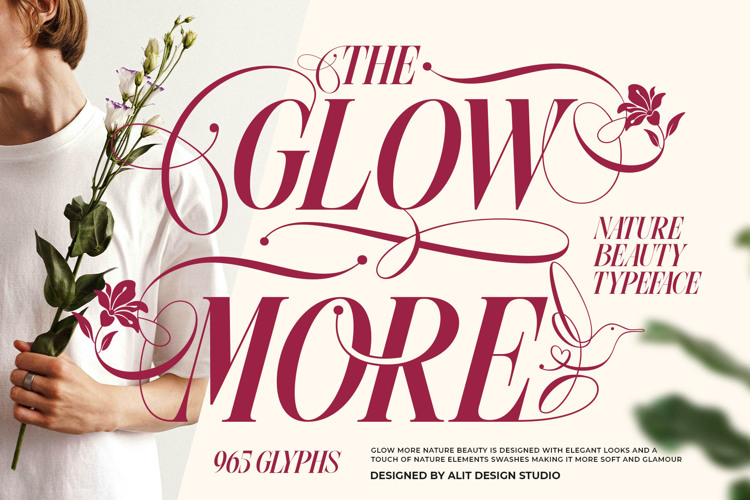
Glow More Font
Glow More - An Elegant Serif with a Touch of Nature's Romance
Introducing Glow More, a stunning slanted serif font that dances with elegance and whispers tales of romance. Inspired by the delicate beauty of nature, Glow More brings a sophisticated and organic touch to your designs. Its graceful slant and refined serifs create a timeless feel, perfect for projects that require a touch of class.